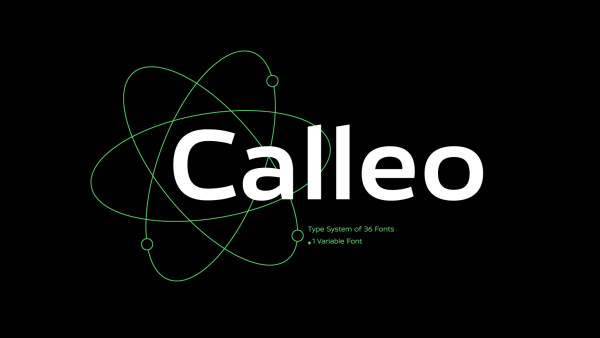
Calleo Font
Calleo Font is a dynamic sans-serif font family that will bring your projects to life. The font was first conceptualised by Plamen Motev back in 2017, and then revisited 5 years later and got to a completion with the creative help of the young and talented French designers Leon Hugues and Leo Guibert, now available at Fontfabric.
Calleo Sans is a clean and welcoming font family that comes in nine different weights and nine italics. It is perfect for a wide range of uses, from print to digital artwork. This font is legible in small sizes and also stands out in large headlines.
Calleo Flux, on the other hand, offers a unique and unorthodox morphing nature. This sub-family pushes the boundaries of its constructive elements and explores intricate forms and ideas, providing a dynamic alternative to the more conservative Calleo Sans. Calleo Flux also comes in nine weights and italics.
The Calleo font family is packed with OpenType features such as tabular numbers, localizations, and fractions. All of these features are combined into a single variable font that offers great flexibility to the users. This makes it easier to experiment with different weights and widths in a single font file, making it perfect for any project.
Overall, Calleo is a font family that provides a fresh and modern approach to typography, giving designers the freedom to explore new possibilities and ideas in their projects.